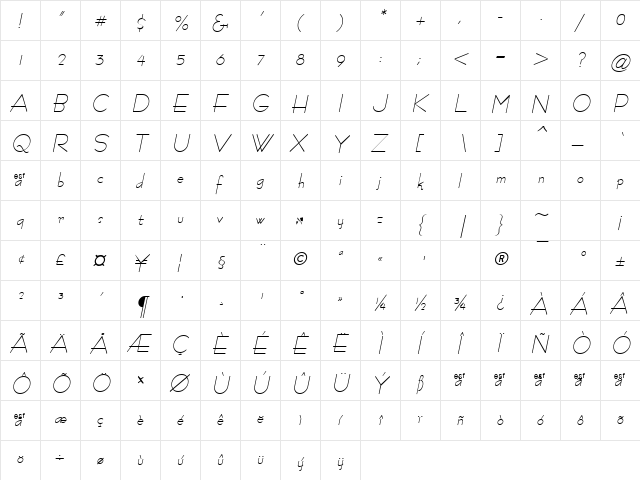
Ramose Oblique
Design Context for Ramose Typeface
Ramose offers clean, dependable letterforms without strong stylistic allegiance, making it a practical choice for designers who need flexibility. Its italic angle brings a sense of urgency and motion to the letterforms.
Pro Tip: Use Ramose for emphasis, pull quotes, and subheadings where its slanted energy can add rhythm to the layout.